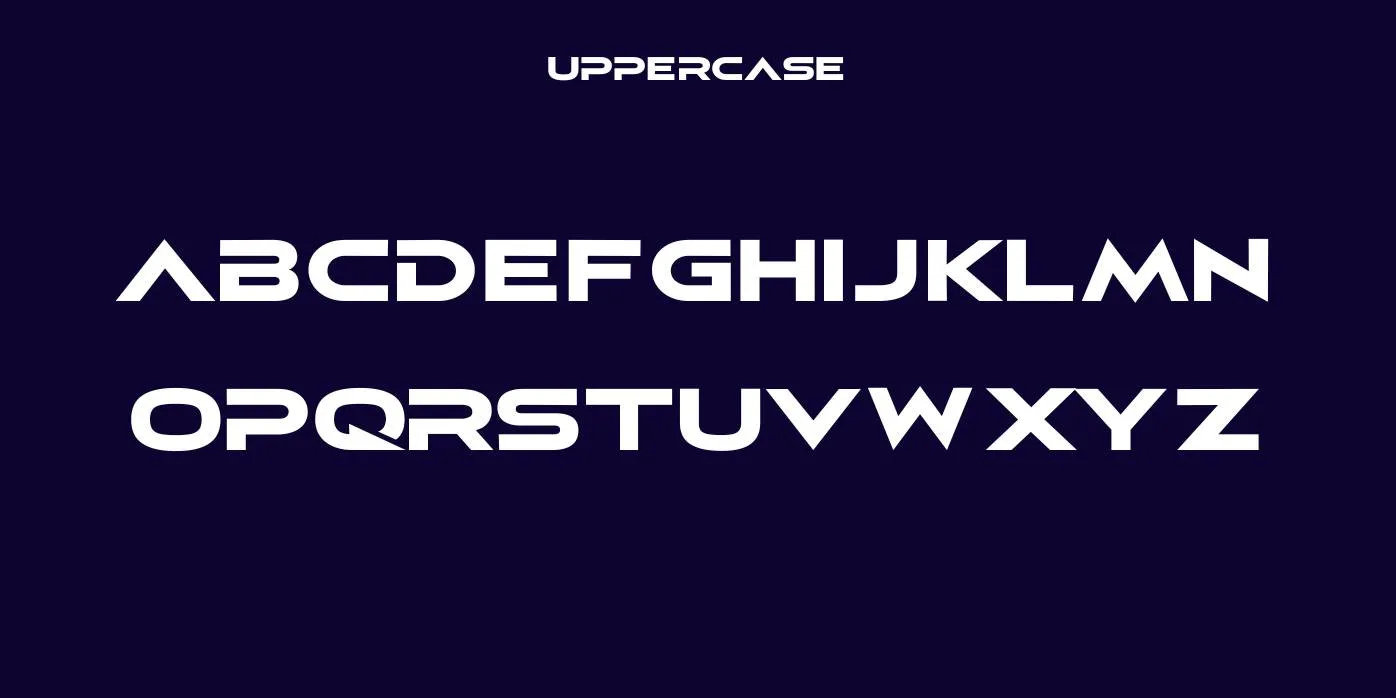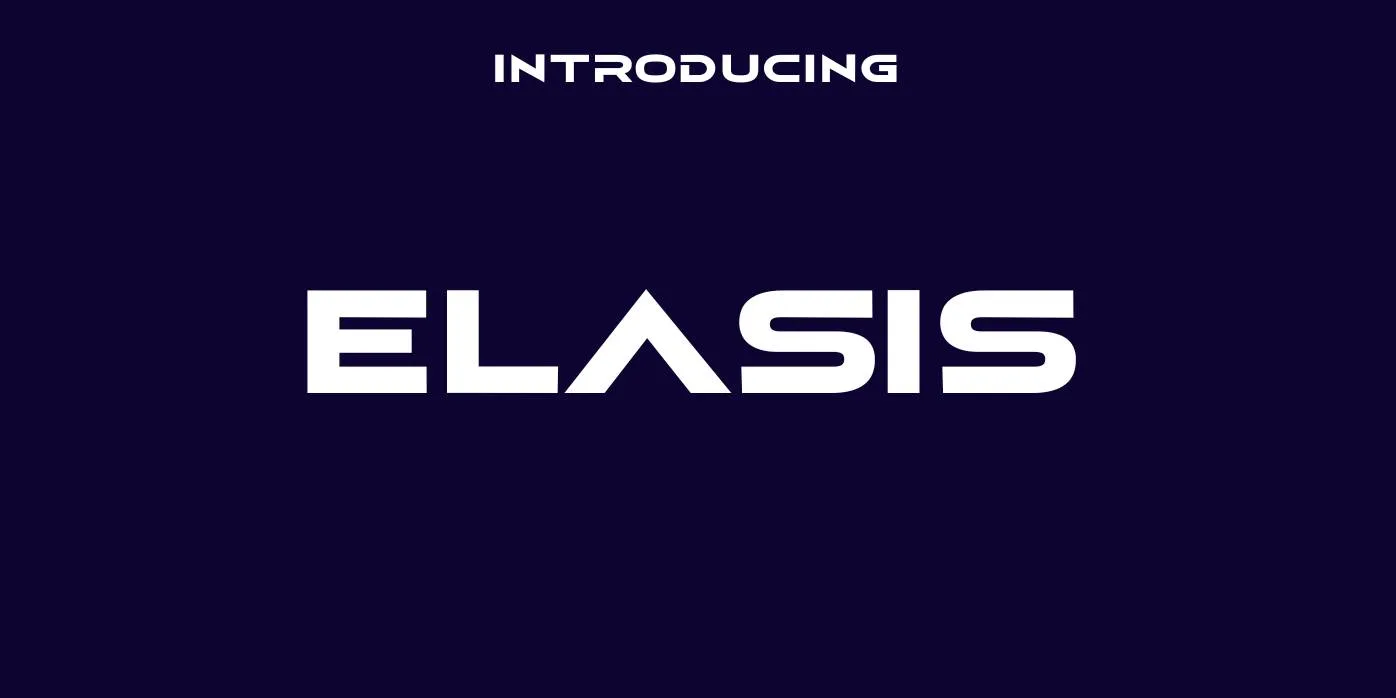
Elasis Font
We discuss detailed information about Elasis Font. This Font was designed by Max Lee. It is a very modern and stylish Techno font. You can make different projects by using this font.
All characters are capitalized so it gives a very strong look. It contains 96, 103 glyphs, and 1000 units per Em. The weight of the font is Bold and its width is expanded. Unicode supported by this font is 2.0 and BMP only.
So you can download this font for use on many different devices such as IOS, PC, and MAC. You can also use it for pairing with other fonts like bazer font to give a more attractive look to your projects. It has a very clear look and you can use this font even for small-size projects. Usage It is a unique font it has some extra spaces between its characters which makes it look very nice and it has high readability.
You can make very neat Sci-Fi projects by using this font. It has characters, capital letters, symbols, special characters, and punctuation. You use this font to make titles for Sci-Fi movies, TV series, and TV shows. Attractive Logos can also be made by using this font.
You can make prints on T-shirts also. Banners, posters, flyers, and brochure printing can also be done by using this font. To make website designs and graphic designs you can use this font in Adobe Photoshop, CSS, and Canva. It is a good font for both print and digital media.
Who is the owner of Elasis Font? This amazing techno font was designed by Max Lee. You can make different Sci. Fi projects by using this font.